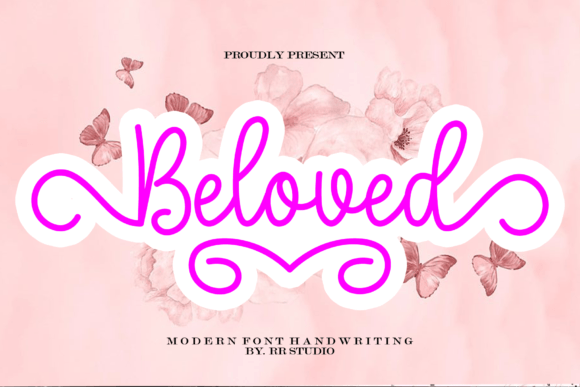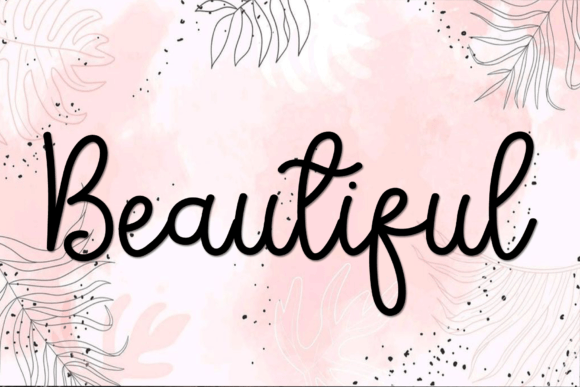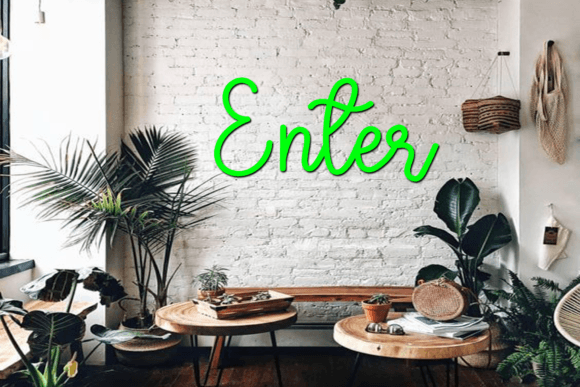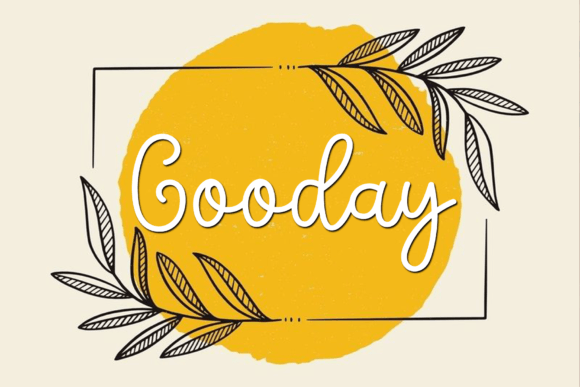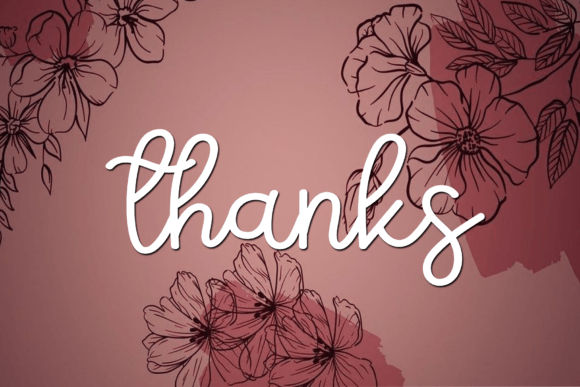
Beloved Font
About Beloved Font
Beloved font is a classic and simple handwritten script that brings a timeless charm to any design project. Its elegant yet understated style makes it a versatile choice for creators seeking a font that is both beautiful and easy to use. This font is ideal for various applications, from crafts and digital designs to presentations and greeting cards.
A Timeless Handwritten Script
Beloved font combines simplicity with sophistication. Its clean, flowing strokes mimic authentic handwriting, offering a personal and warm touch to your creations. The font’s classic design allows it to blend seamlessly with many styles, making it a dependable option for all kinds of projects.
When you download Beloved font, you unlock a typeface that adapts perfectly to numerous creative needs. Whether you are working on heartfelt greeting cards or sleek digital presentations, this font elevates your work with its elegant script style. Its readability and charm make it a great pick for designers of all skill levels.
Versatile Applications
Belovedfont is suitable for a wide range of uses, including:
• Handmade crafts and DIY projects
• Digital artwork and graphic design
• Business presentations and slideshows
• Greeting cards and invitations
This font’s graceful appearance ensures your work stands out while maintaining a warm and friendly feel.
In summary, Belovedfont is a classic and simple handwritten script that will quickly become your favorite choice for many projects. Download Belovedfont today to add a timeless and elegant touch to your creative works.